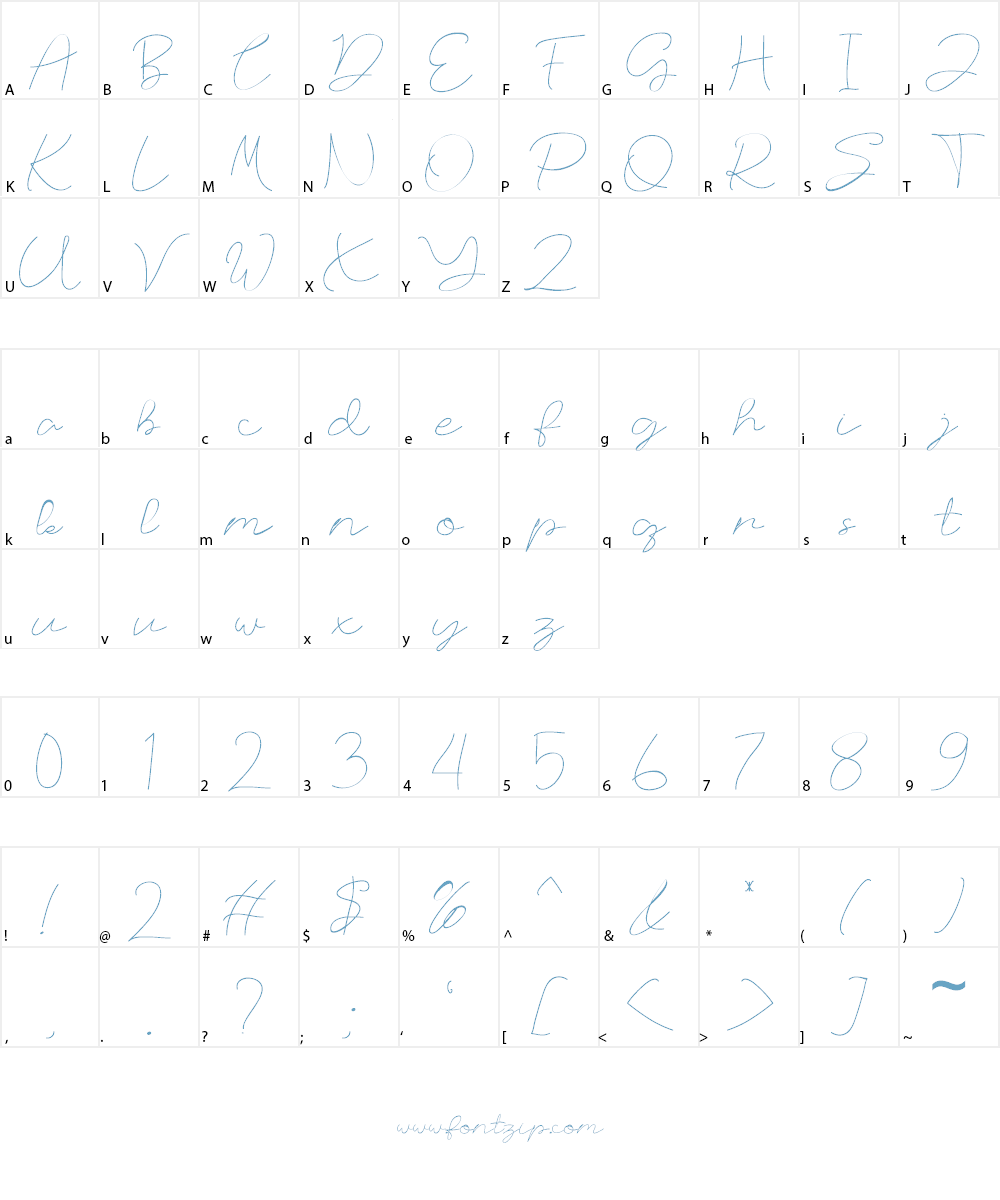
Russland Signature
The Russland is a modern & fresh script. It has a stylish handwritten style which gives is a natural and classy look.
It’s perfect for many different project such as logos & branding, invitations, stationery, wedding designs, social media posts, advertisements, product packaging, product designs, labels, photography, watermarks, special events, and much more!
The Russland is a modern & fresh script. It has a stylish handwritten style which gives is a natural and classy look.
It’s perfect for many different project such as logos & branding, invitations, stationery, wedding designs, social media posts, advertisements, product packaging, product designs, labels, photography, watermarks, special events, and much more!